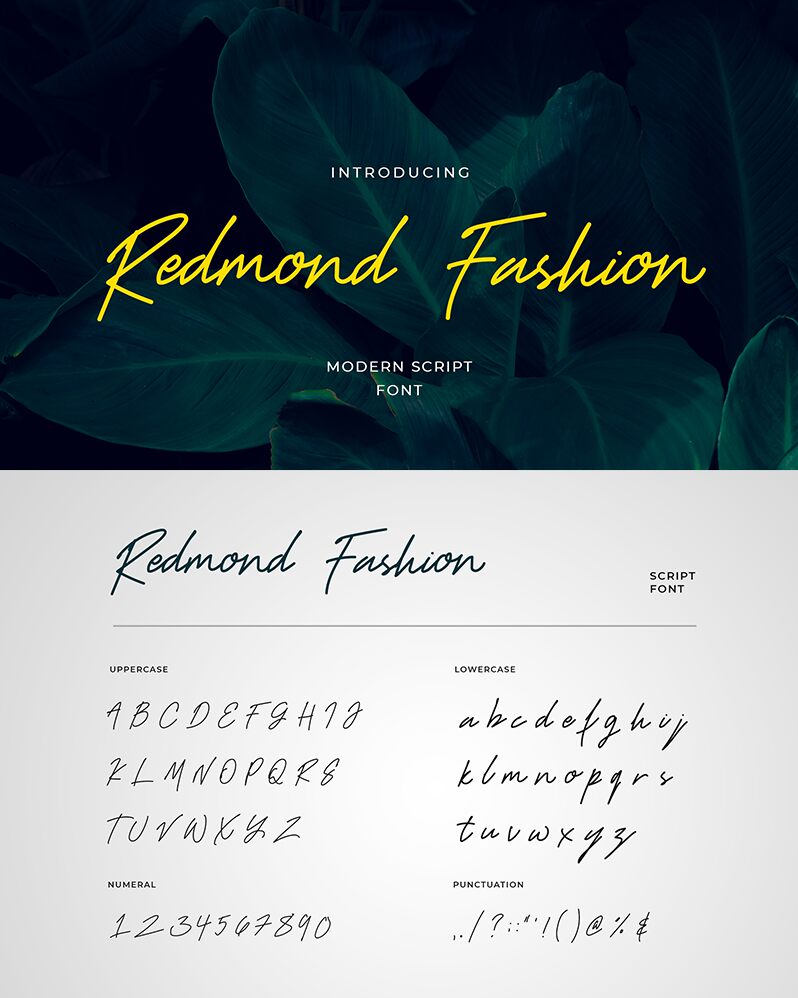
Redmond Fashion 字体预览
Redmond Fashion is a handwritten font that looks elegant and natural with a continuing style. included in the modern script family so there seems to be a mix of manual and digital that makes people confused whether your brand or product writing is natural handwriting or font results, because it has the perfect alternative ligature and letter combination for your brand. For example for designs such as websites, social media, handicraft products, fashion, quotes, brand designs, magazines and billboards